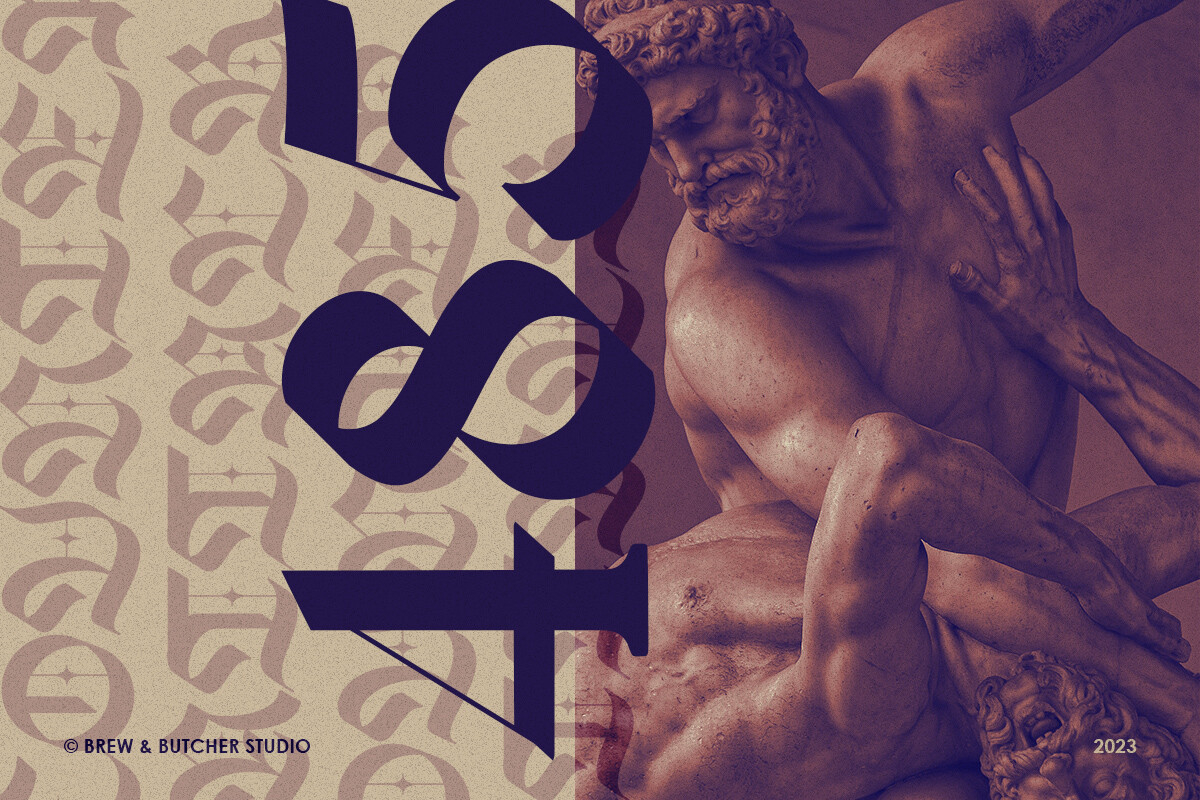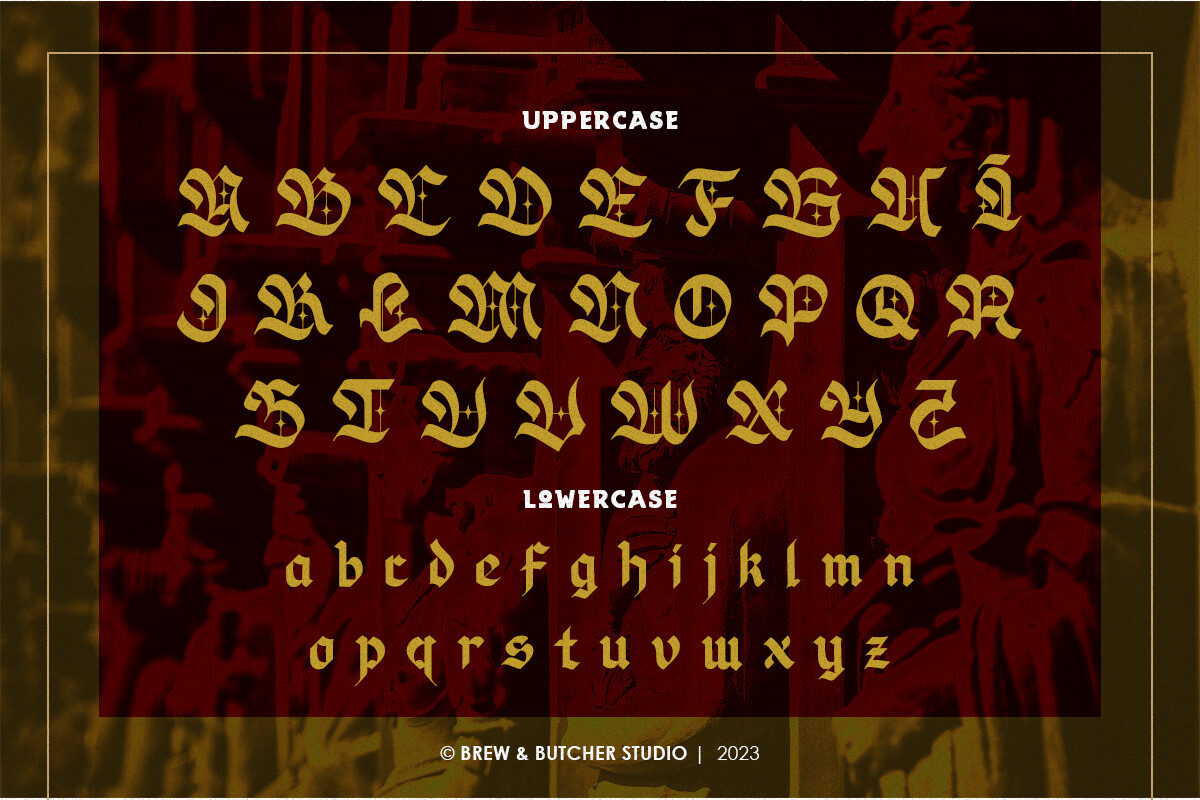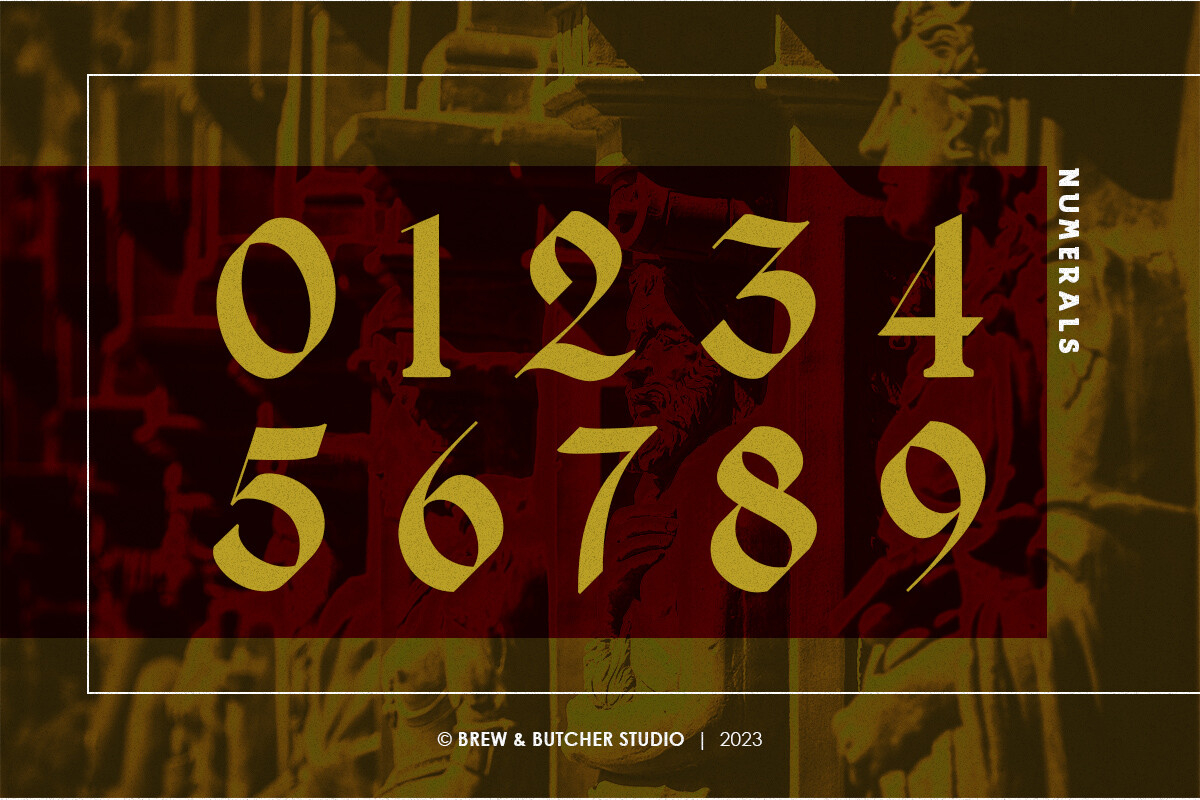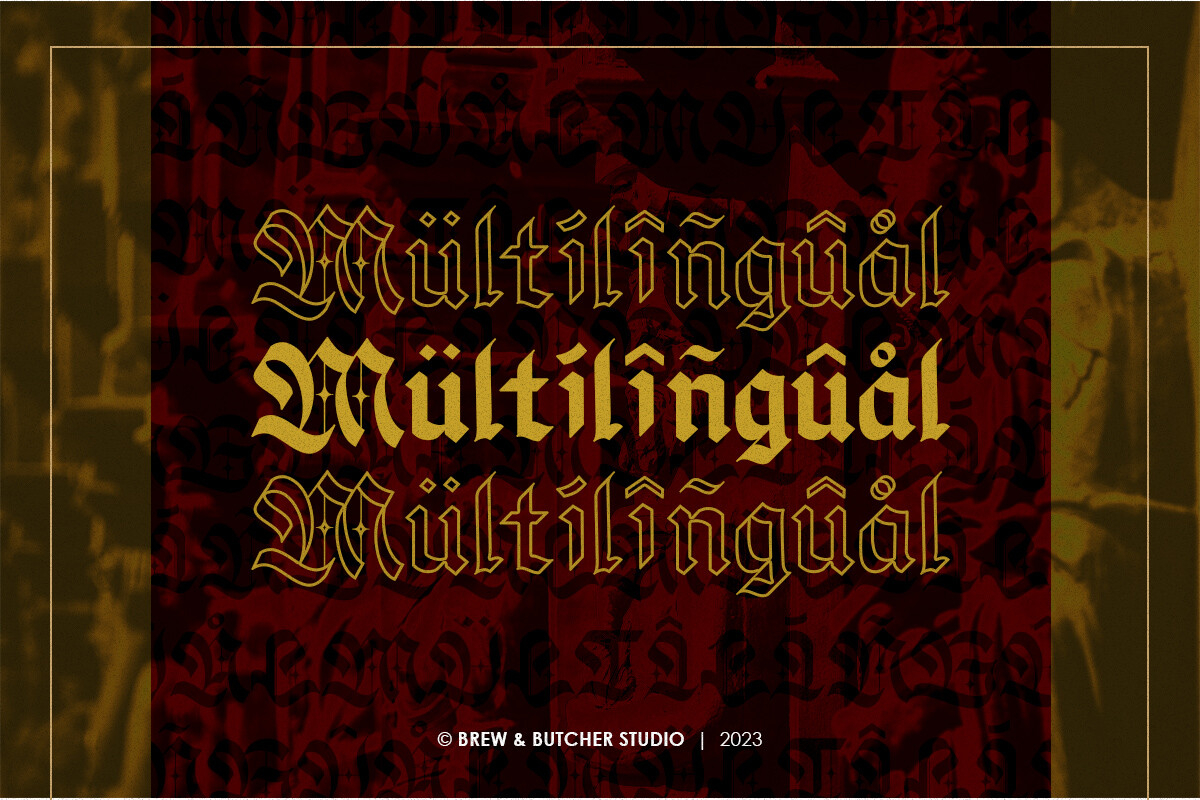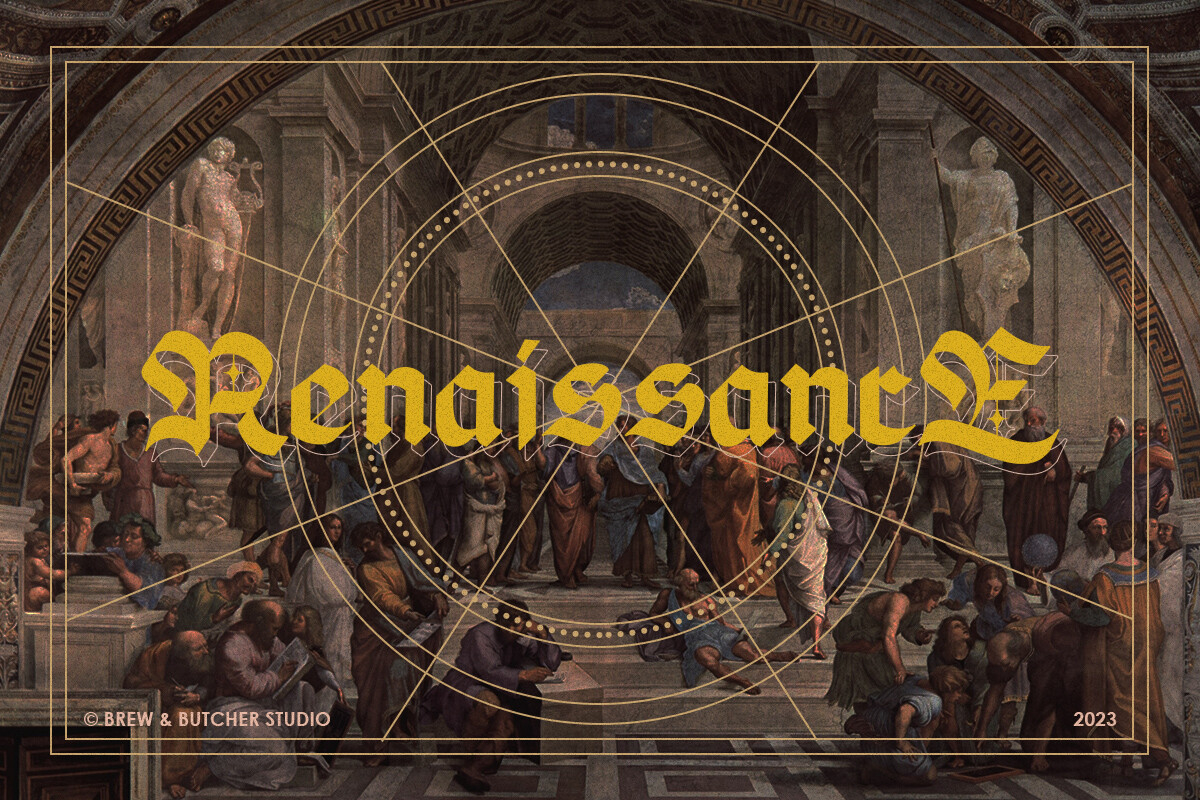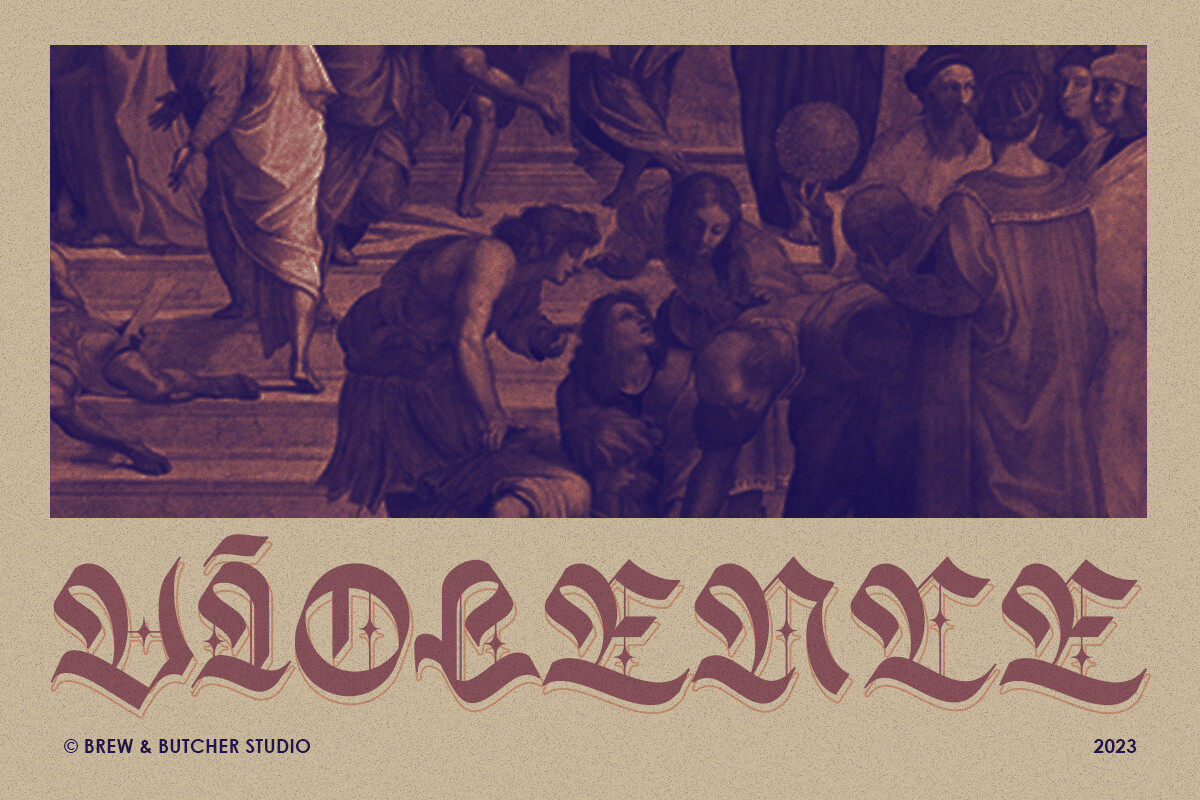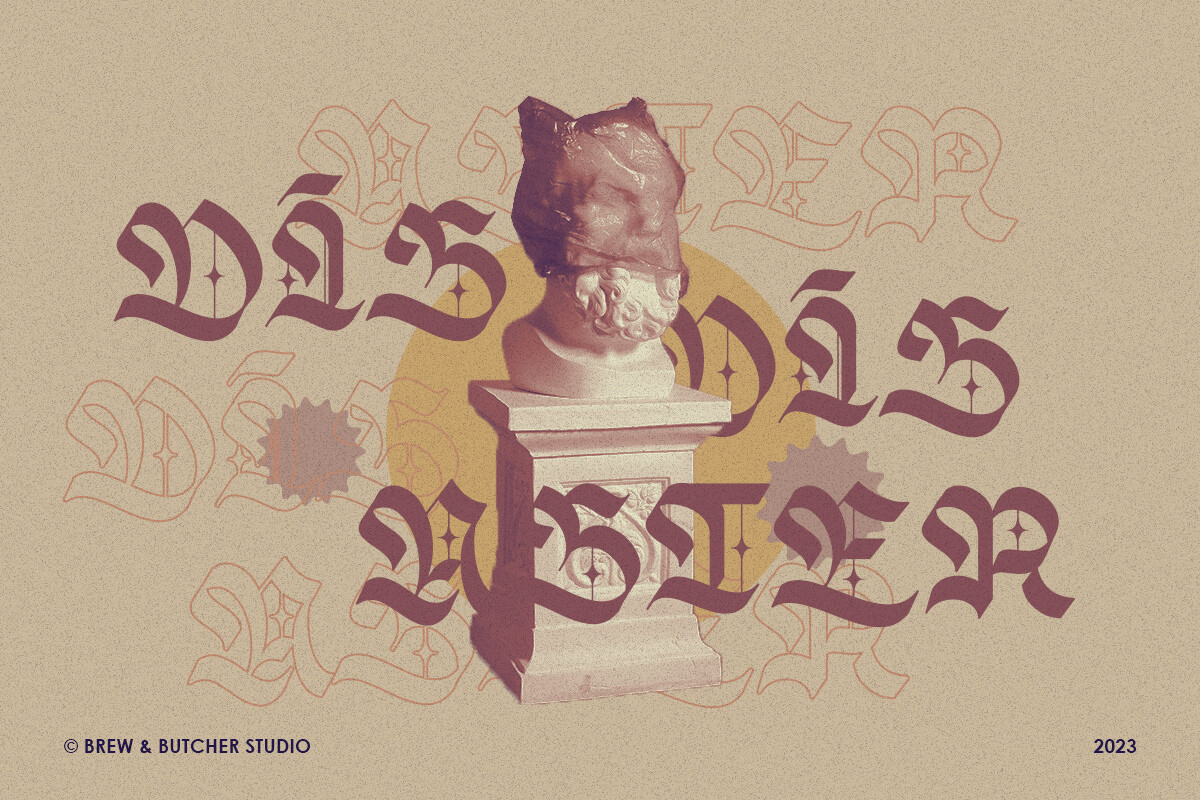
Mosire Font
About Mosire Font
Mosire is a blackletter calligraphy style. This font has a slightly spooky and gothic impression, but still gives a bold impression. With soft curves, it looks attractive and consistent. This font is best to use for header or headline, posters, flyers, banners, landingpages, portfolios, album covers and so much more.